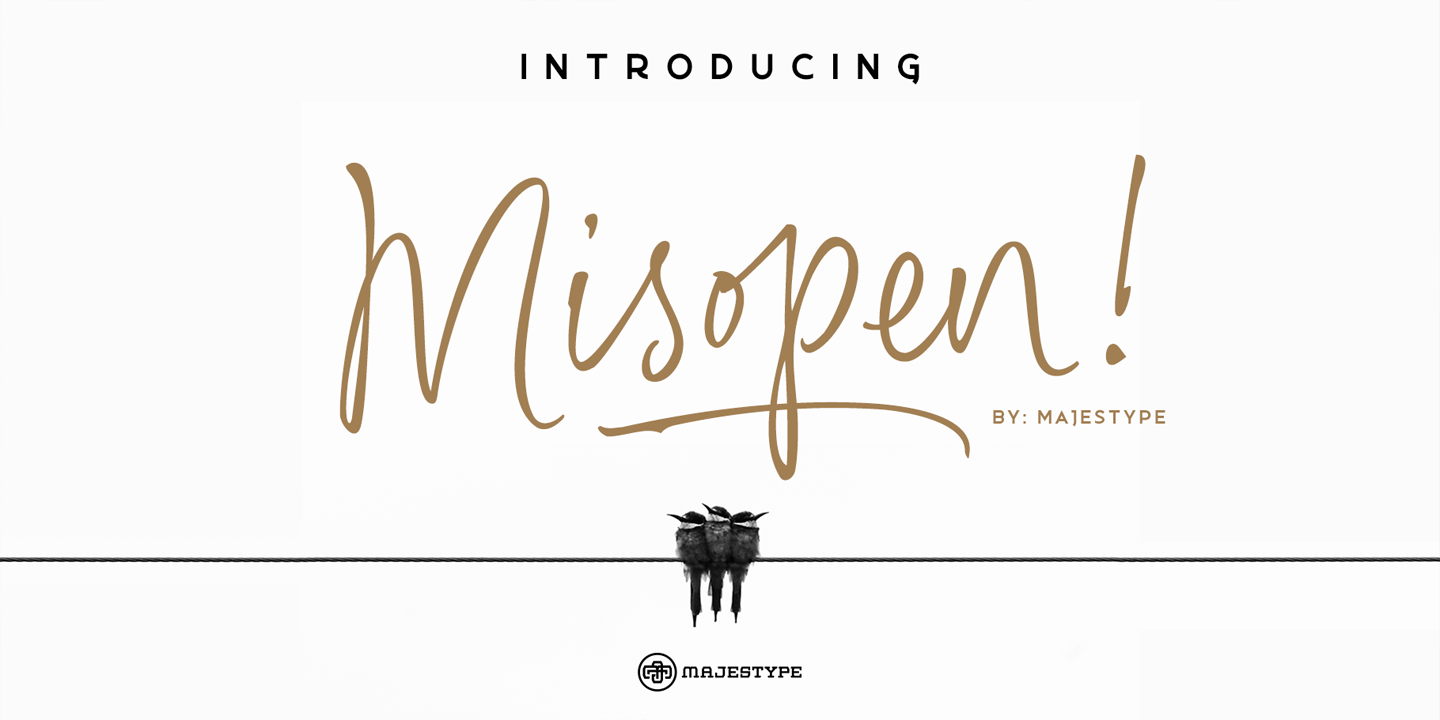
The Misopen Script Font is perfect for elegant wedding invitations, luxury calligraphy services, handwritten greeting cards, artisanal craft labels, boutique fashion branding, sophisticated restaurant menus, premium stationery designs, personal correspondence materials, and refined lifestyle magazine headers.
What makes the Misopen Script Font so exciting is its graceful handwritten elegance that perfectly captures the intimate beauty and personal touch of authentic script lettering. This exquisite typeface embodies the flowing artistry and refined sophistication that defines premium calligraphy, creating an immediate impression of personal attention and handcrafted luxury. The font's script character communicates the artistic skill and personal care that handwritten elegance businesses need to attract discerning customers who appreciate authentic calligraphic artistry and seek personalized experiences that reflect individual attention and sophisticated craftsmanship.
The Misopen Script Font family includes Regular weight with complete uppercase and lowercase alphabets, comprehensive numerical sets, essential punctuation marks, and elegant script flourishes that maintain the handwritten aesthetic throughout your calligraphy and personalized elegance design projects.
Calligraphy professionals and luxury service providers consistently select Misopen Script Font Free Download for projects that require authentic script appeal and sophisticated handwritten communication. This exceptional typeface excels in environments where establishing personal elegance and calligraphic credibility is crucial for attracting clients who value handwritten artistry and personalized luxury experiences. The font's script character helps communicate the skill and personal attention that elegant script audiences expect from established calligraphers and premium personalized service providers.
The distinctive qualities of Misopen Script Font reflect the timeless traditions of fine calligraphy where artistic skill, personal expression, and elegant craftsmanship create beautiful written communications and memorable luxury experiences. Each character demonstrates the flowing grace and careful attention that characterizes master calligraphers and sophisticated script artists. The font's proportions and spacing create perfect harmony between handwritten authenticity and elegant readability that modern luxury businesses require for effective personalized communication and elegant brand positioning.
Contemporary elegance enterprises appreciate how Misopen Script Font communicates calligraphic authenticity and personalized luxury. Whether designing materials for wedding planners, creating branding for luxury stationery companies, or developing marketing for personalized gift services, this font delivers the sophisticated character that distinguishes authentic handwritten elegance from digital script imitations. The typeface works exceptionally well for businesses emphasizing personal touch, artistic craftsmanship, and the refined appeal of authentic calligraphic artistry and personalized luxury experiences.
The versatility of Misopen Script Font extends across multiple elegance applications and personalized luxury marketing initiatives. High-end wedding planners utilize its script character for elegant invitation designs and personalized ceremony materials. Luxury boutiques choose it to communicate their commitment to personalized service and sophisticated customer experiences. Artisanal craft makers rely on its handwritten appearance to attract customers seeking authentic handmade products with personal artistic touches.
Digital elegance platforms benefit from Misopen Script Font's optimized performance across various script applications and personalized communication channels. The font maintains its handwritten character whether displayed on luxury websites, mobile elegance apps, or high-resolution personalized presentations. This technical excellence ensures consistent brand presentation across all elegance communication platforms and personalized luxury engagement scenarios.
The emotional impact of Misopen Script Font resonates with audiences who appreciate the personal touch of handwritten elegance and seek sophisticated experiences that reflect individual attention and artistic craftsmanship. The typeface serves as a visual promise of personal care and elegant attention that helps luxury businesses build intimate relationships with customers who value handwritten artistry and personalized luxury experiences. This connection to personal elegance and calligraphic sophistication makes it invaluable for establishing memorable luxury brand identities.
Luxury marketing specialists and calligraphy design professionals recognize Misopen Script Font as an essential tool for authentic script branding. The font captures the essence of handwritten elegance while making calligraphic sophistication accessible to contemporary luxury businesses who want to communicate their commitment to personal attention, artistic craftsmanship, and the refined beauty of authentic script artistry in today's personalized luxury marketplace.